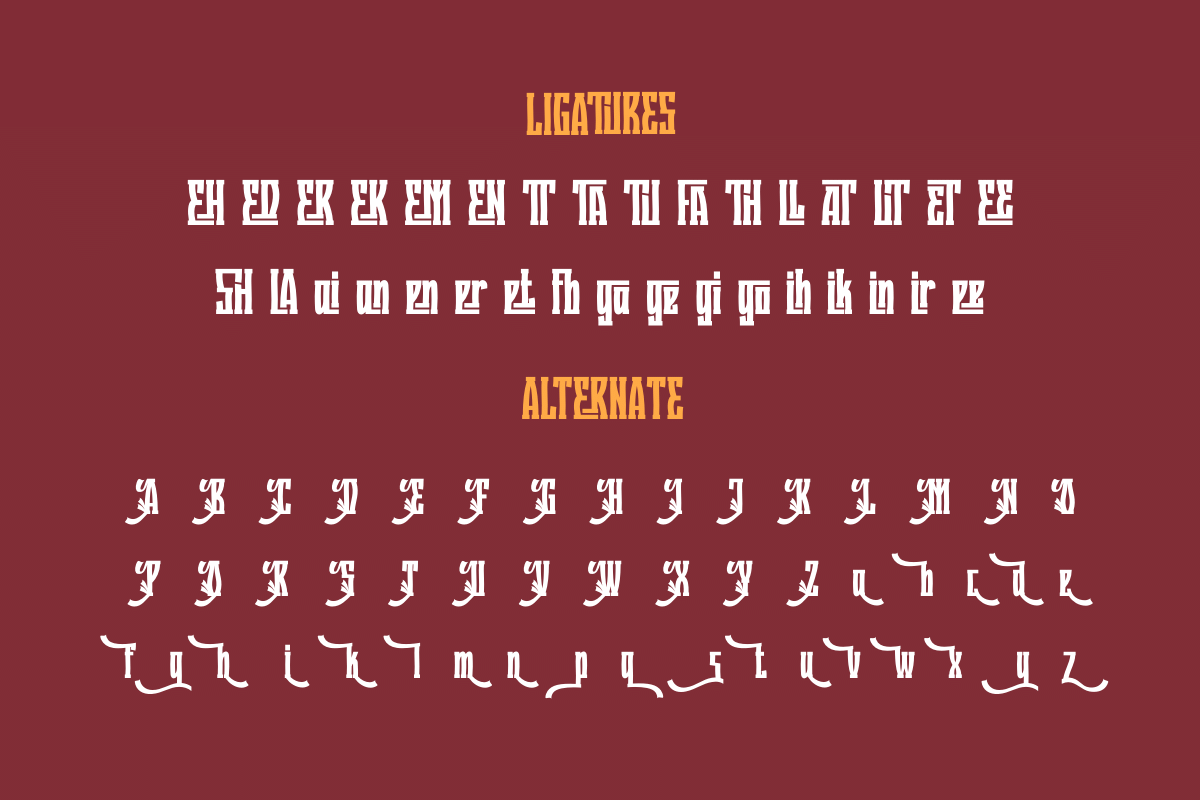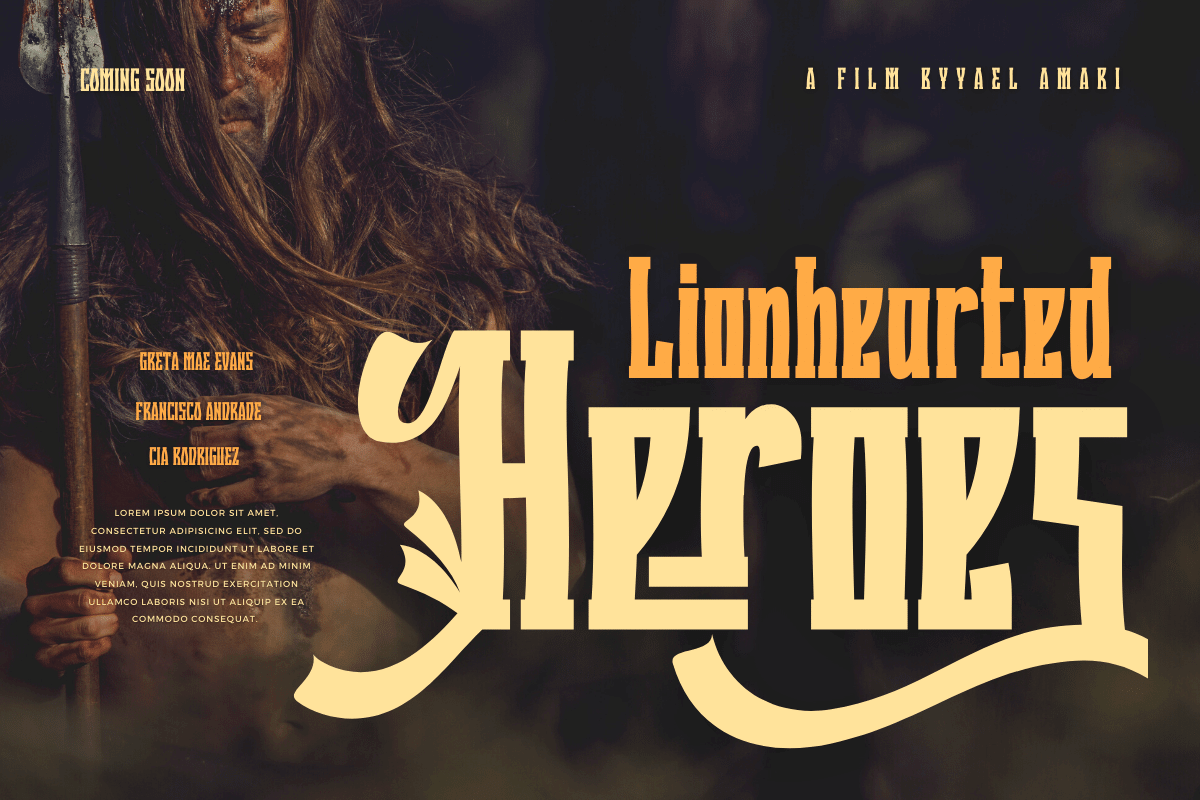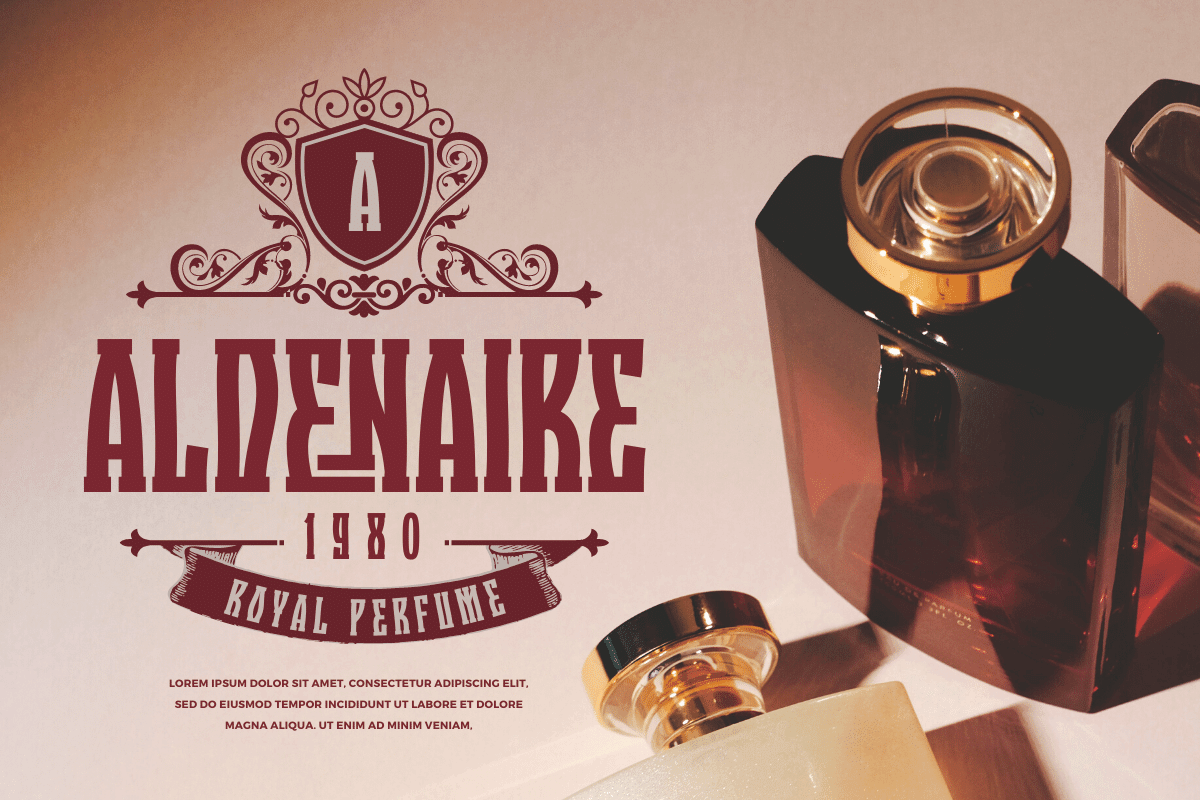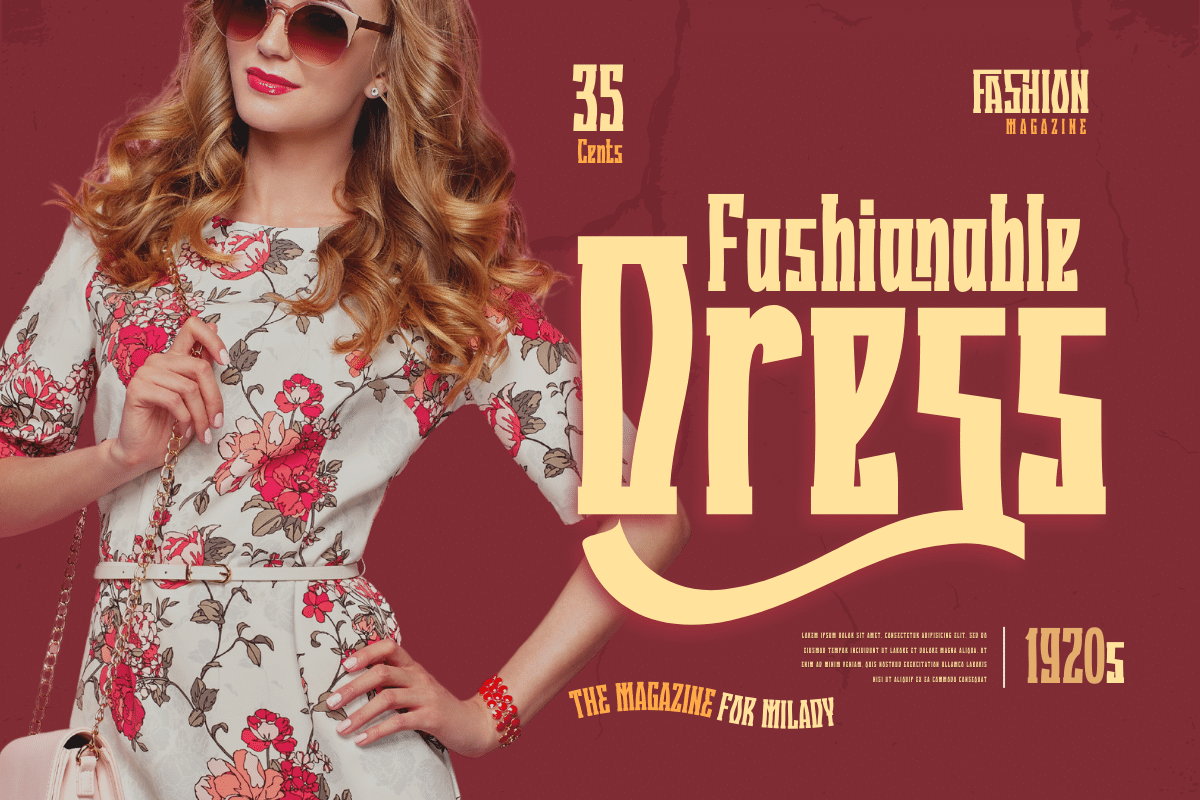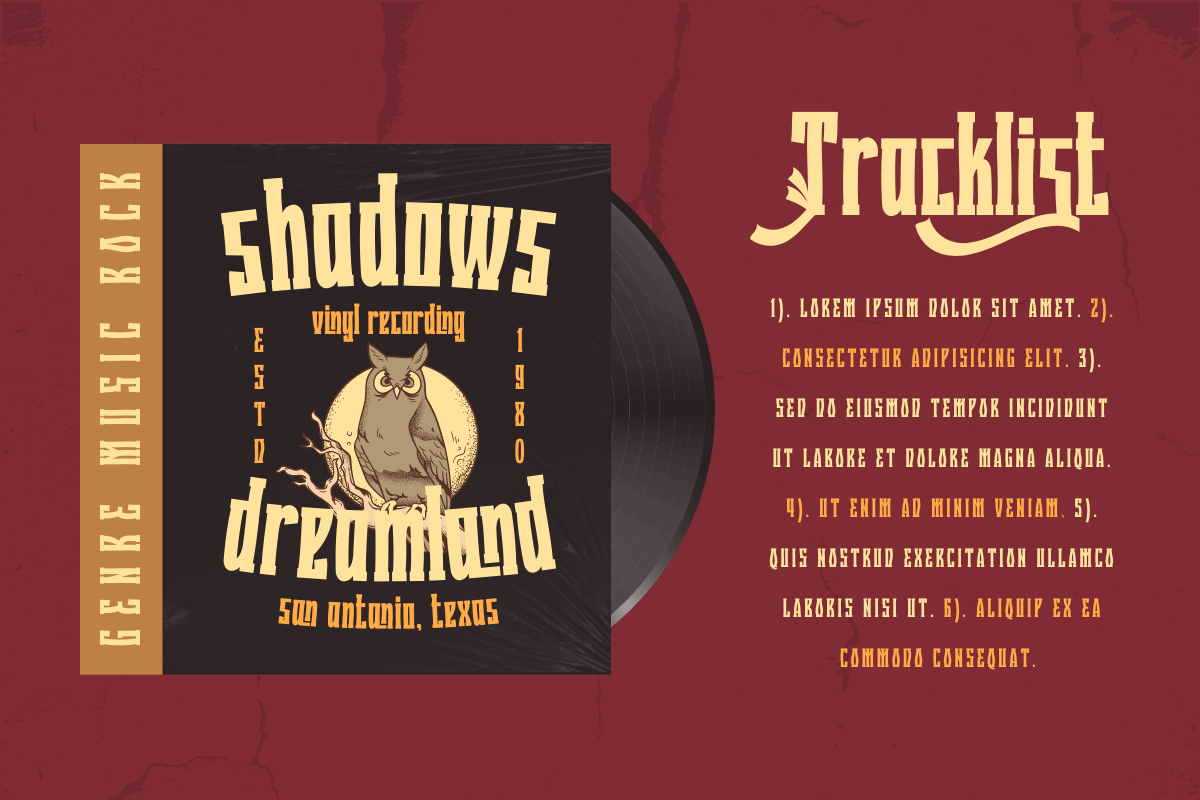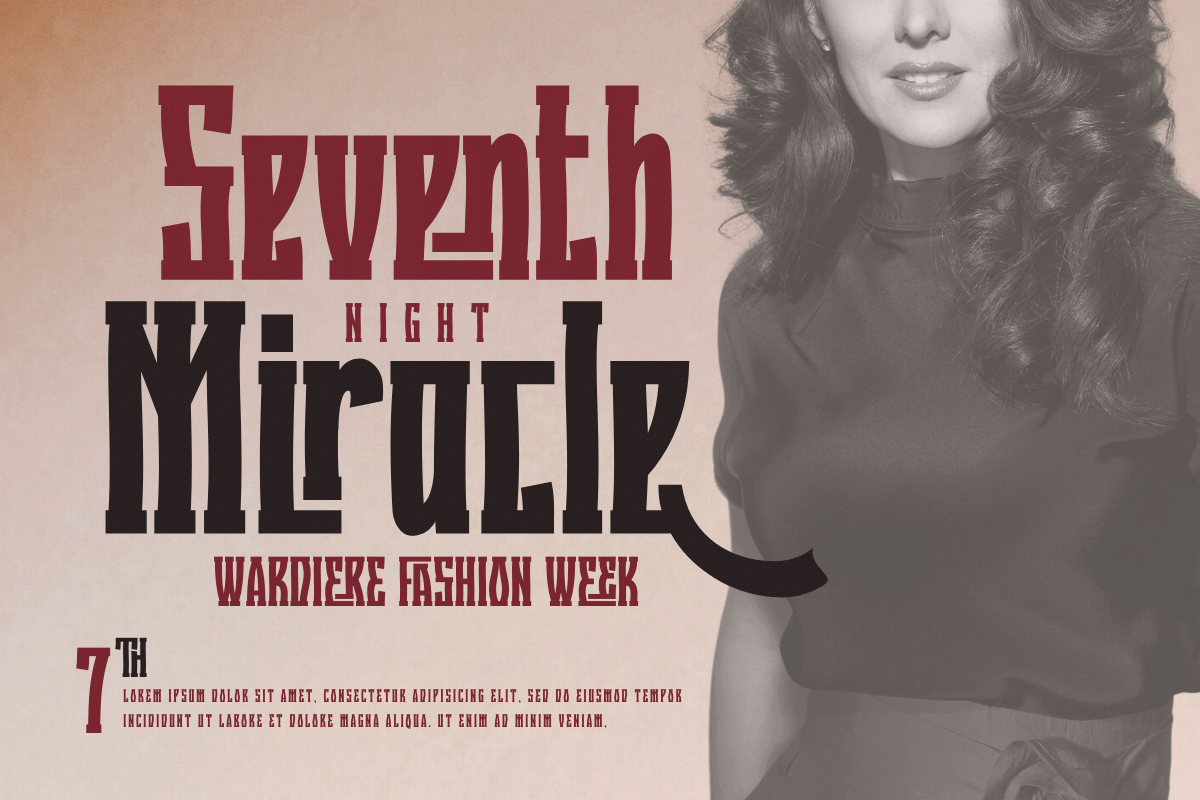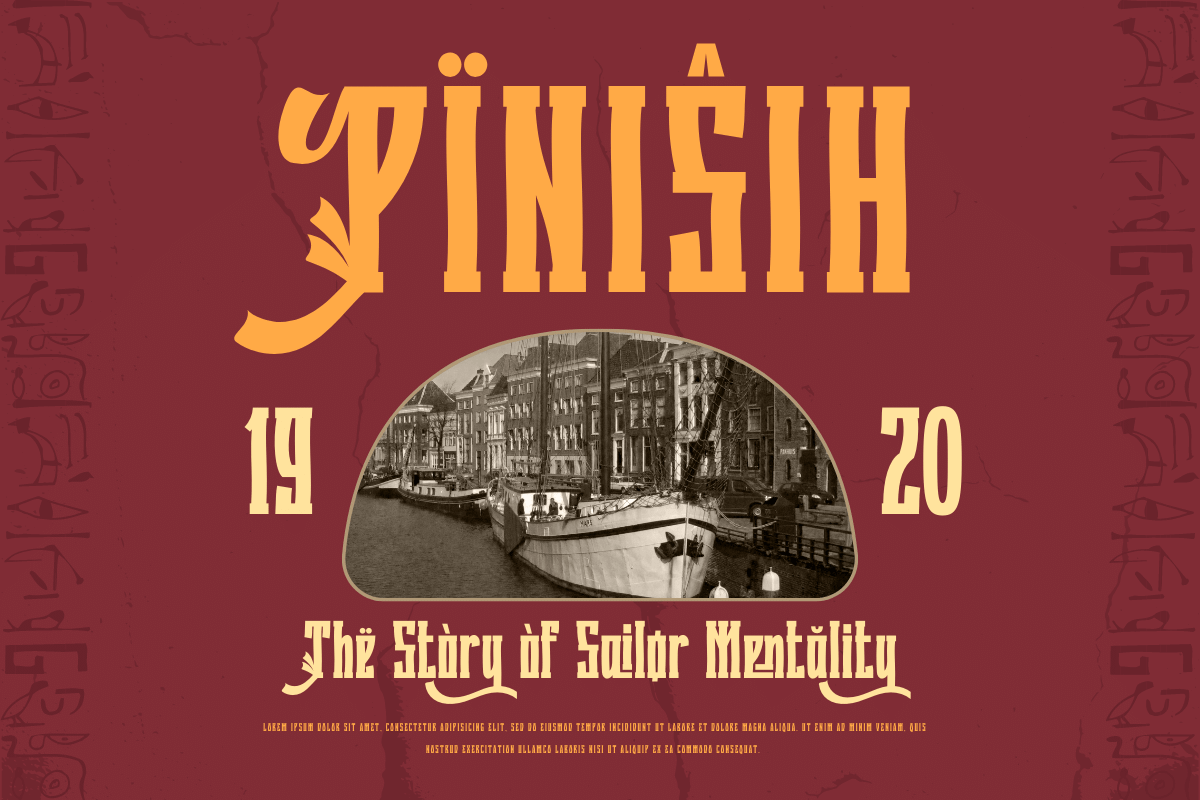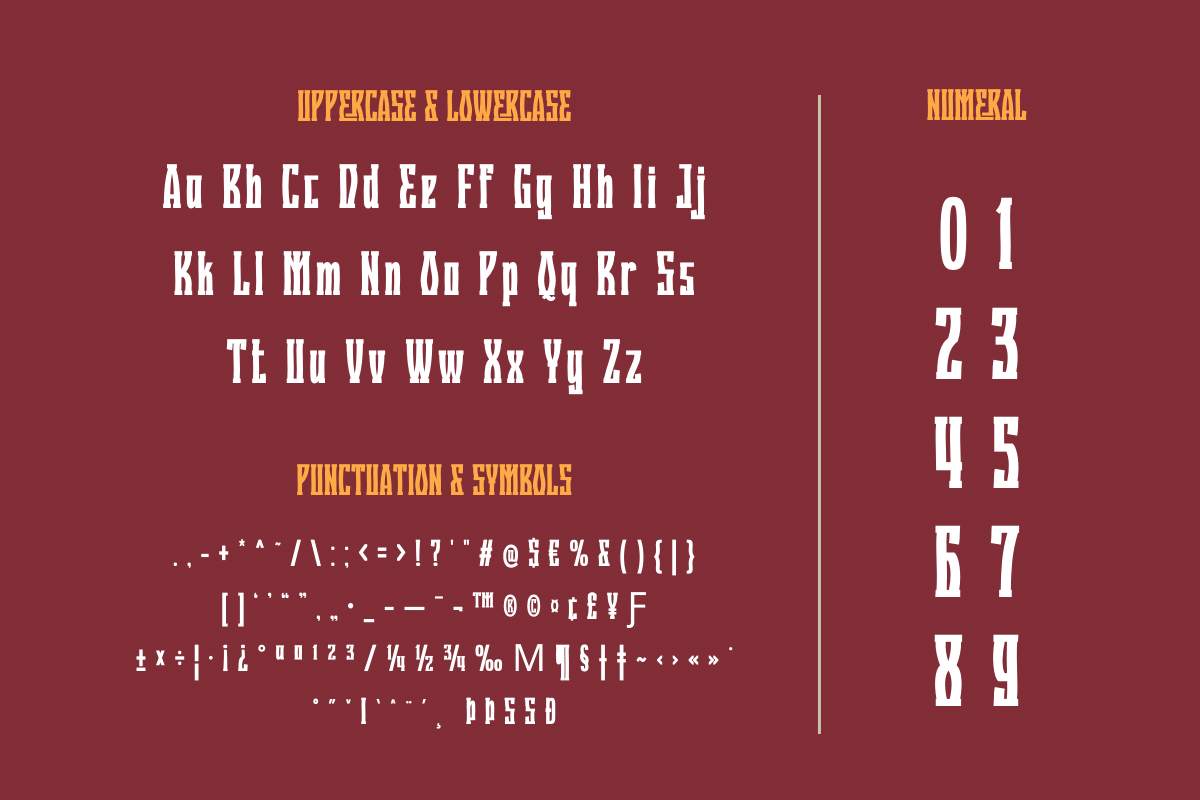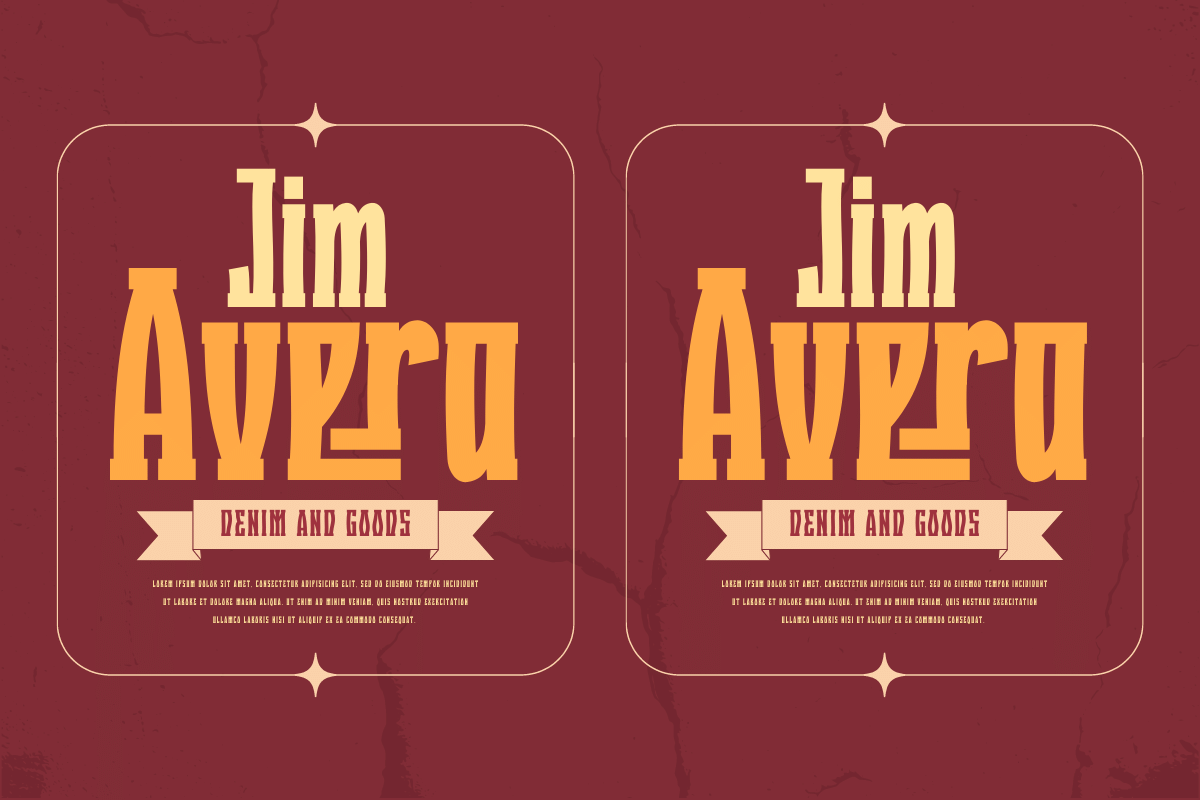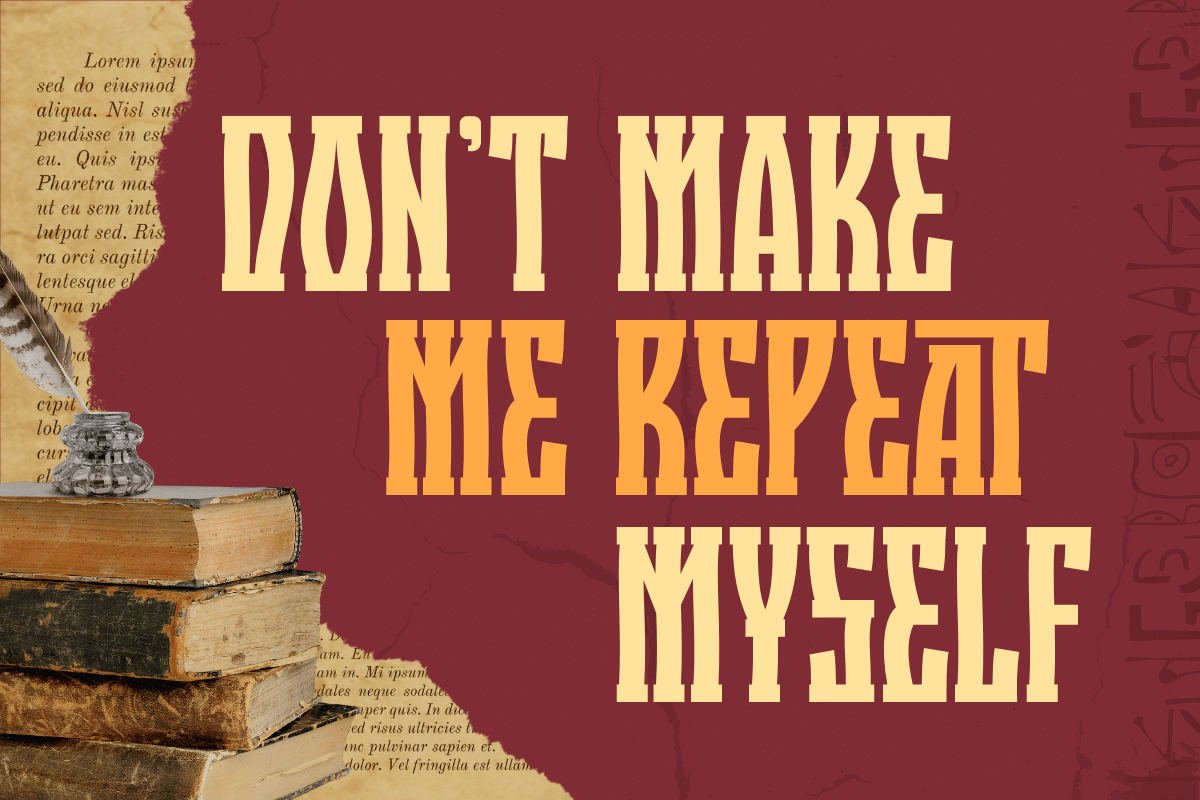
Quzirah – Retro Condensed Font
Introducing Quzirah, a retro condensed font that blends classic design with a vintage feel. This font is the perfect addition to any project seeking to evoke nostalgia and charm. Quzirah comes fully loaded with 49 alternate characters and 33 ligatures, allowing for endless creative possibilities.
Designed with both style and functionality in mind, Quzirah supports multiple languages and is easy to use. With its beautiful and unique letterforms, this font will elevate your designs and add a touch of sophistication. Whether you’re designing a vintage poster or creating a retro-themed project, Quzirah has got you covered. Download it now and let your creativity run wild!
- Alternate, Ligature